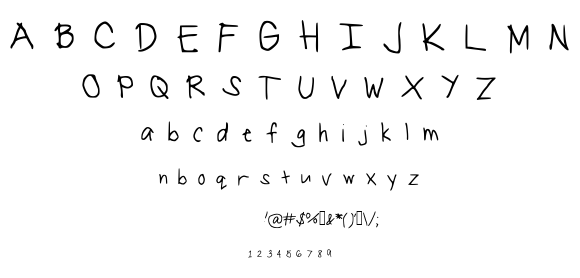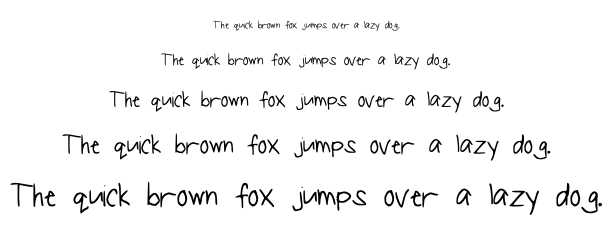
Got an assignment to print out? Try Study Notes.
It is complete with letters and punctuation marks, and you get that lazy weird style. Like what you exactly do in class!
Jot down notes with Study Notes!